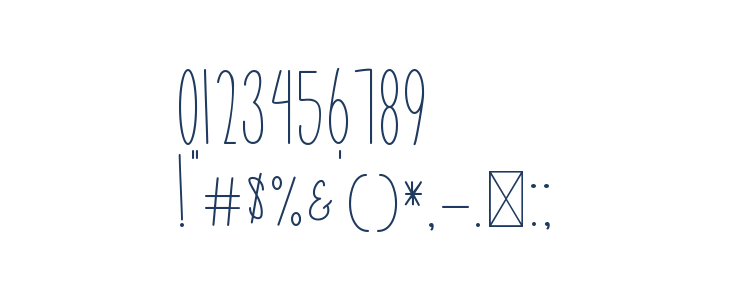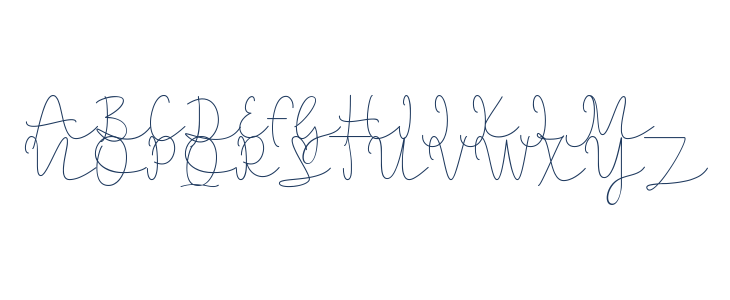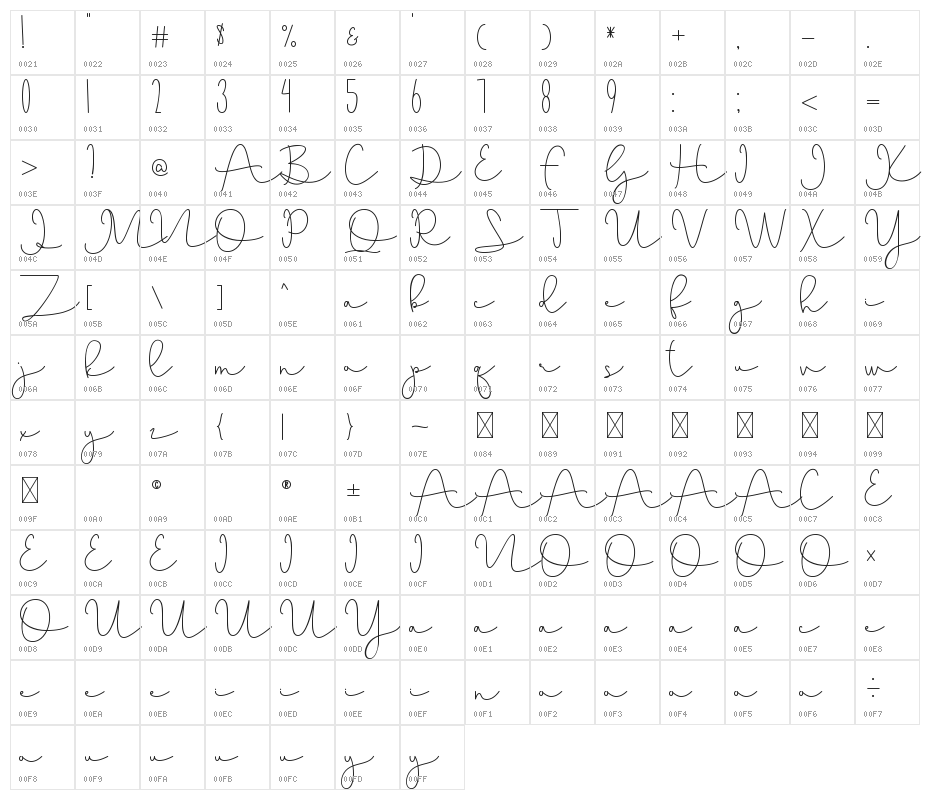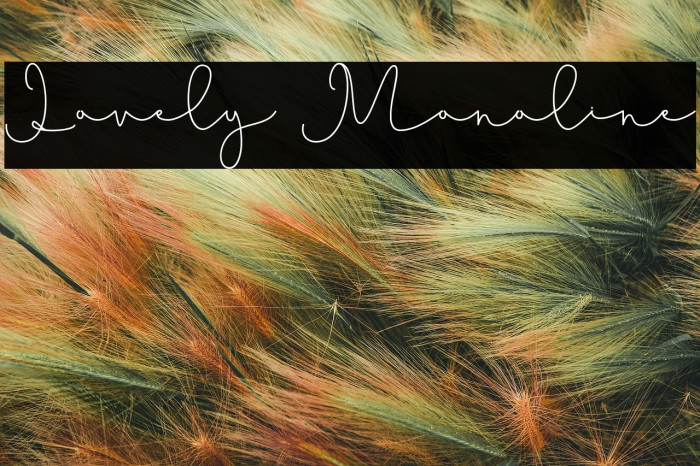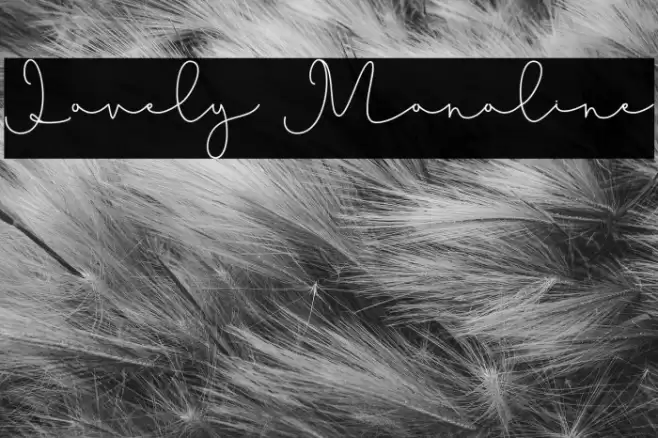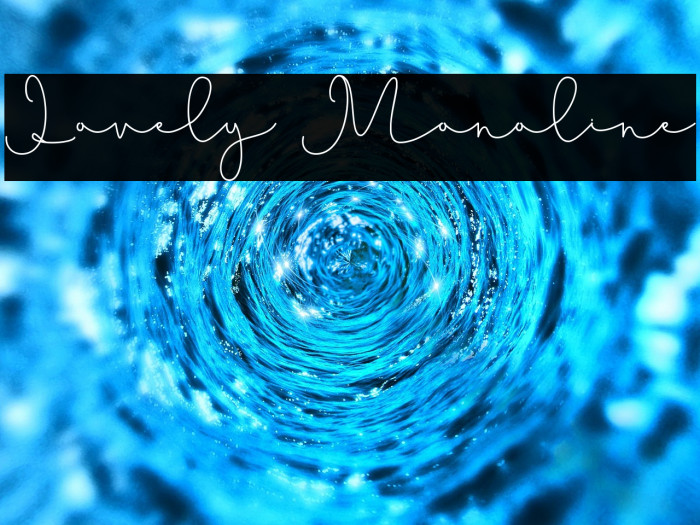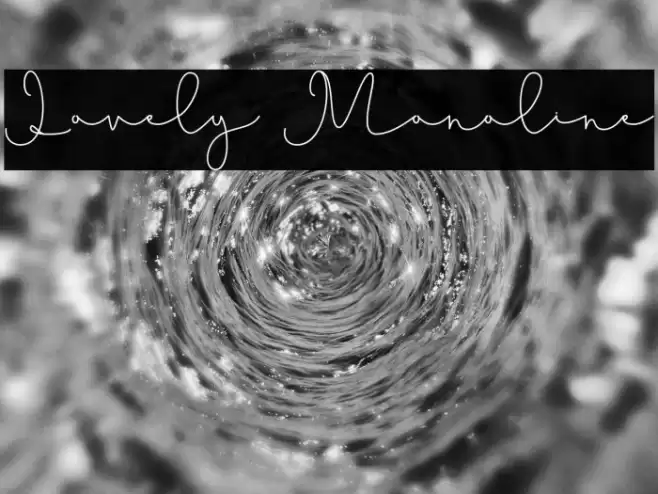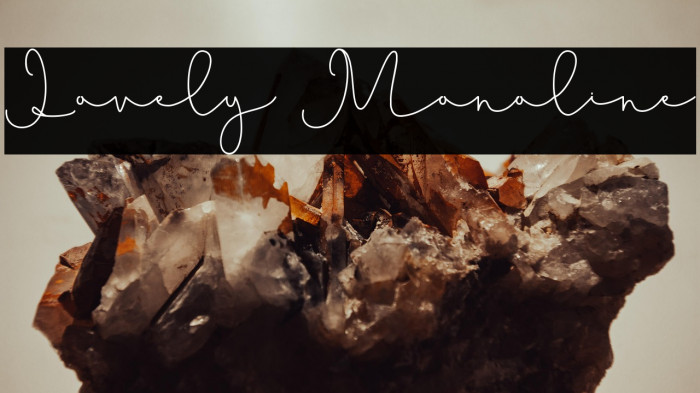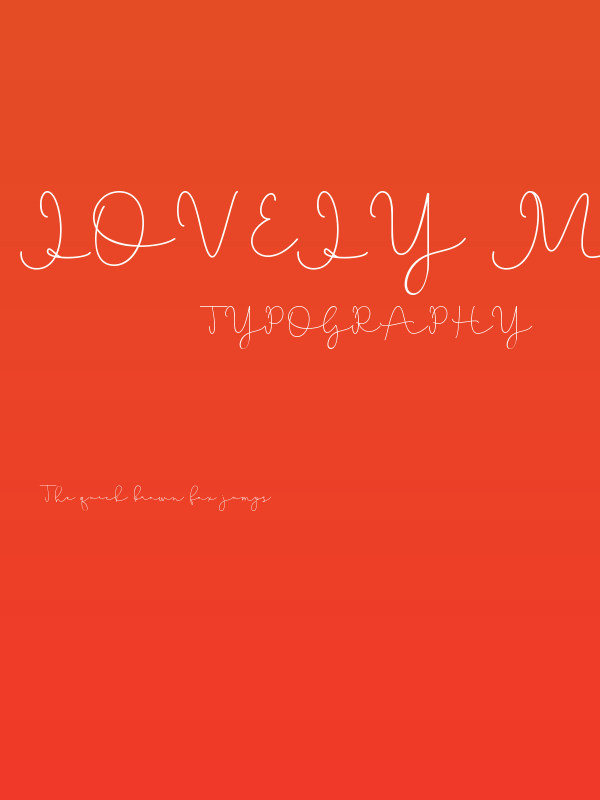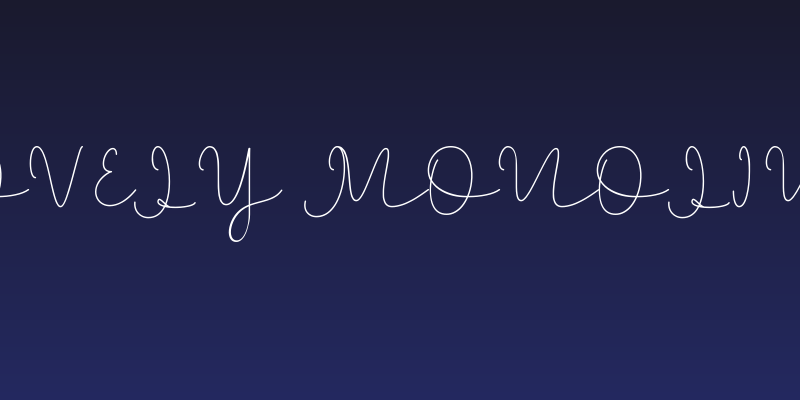
Lovely Monoline Font
A delicate, handwritten cursive font with a light, airy feel, featuring thin strokes and elegant loops.
| Overall Style | Elegant, whimsical, casual |
| Use Case | Invitations, greeting cards, personal branding, logos, decorative headings. |